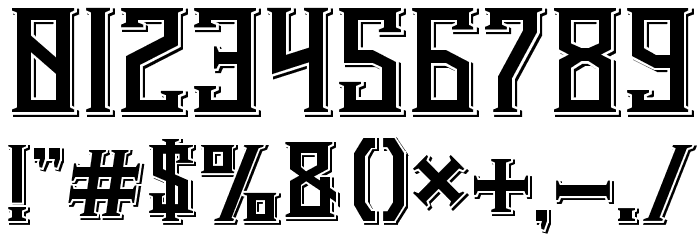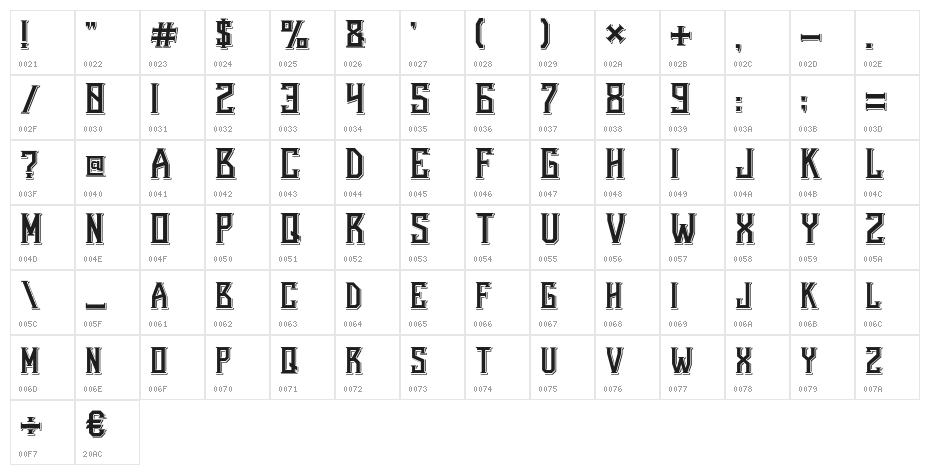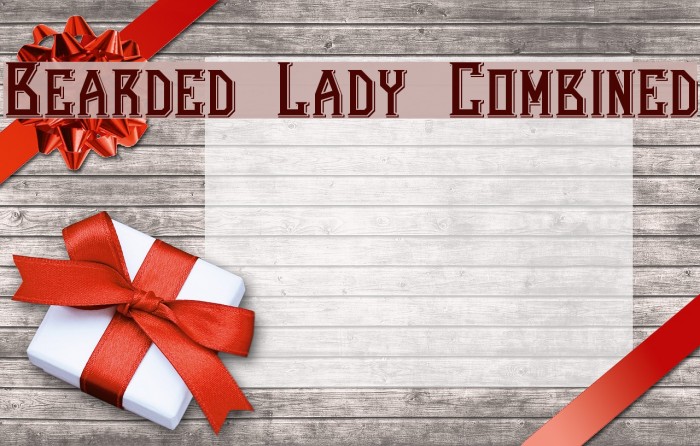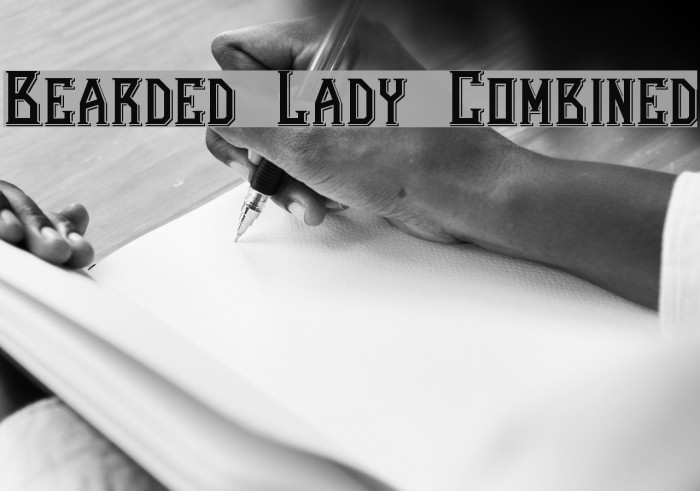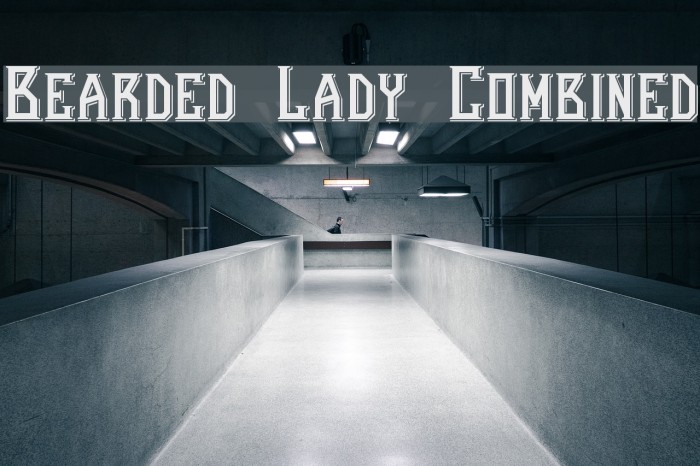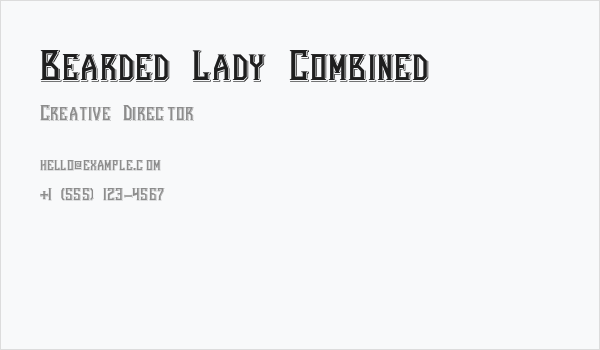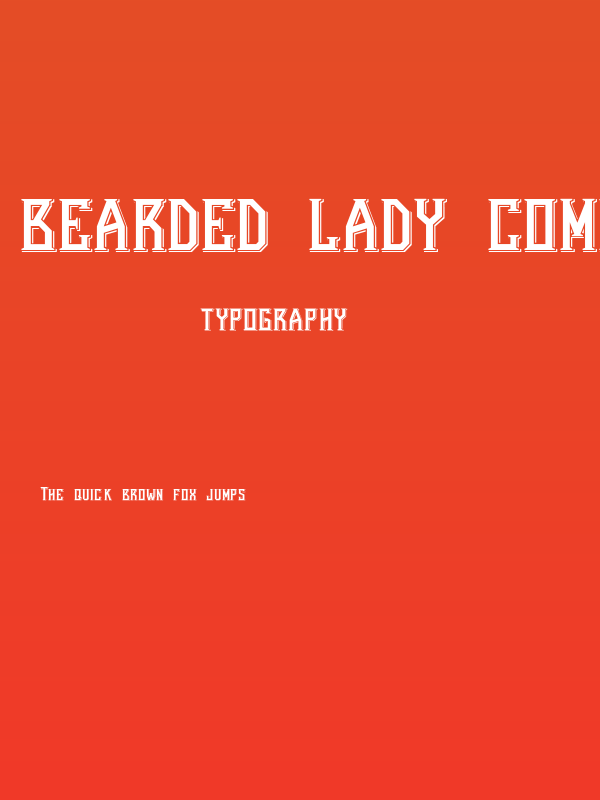
Bearded Lady Combined Font
Bearded Lady Combined Description
This font features a bold and striking design with a strong presence. The characters are crafted with a unique blend of sharp angles and decorative elements, giving it a distinct and eye-catching appearance. The uppercase and lowercase letters maintain a consistent style, with intricate details that add to its decorative nature. The numerals and special characters follow the same design principles, ensuring uniformity across all glyphs. The font's boldness and decorative flair make it suitable for projects that require a strong visual impact.
| Proposed Projects | Ideal for posters, logos, branding, and any design requiring a bold statement. |